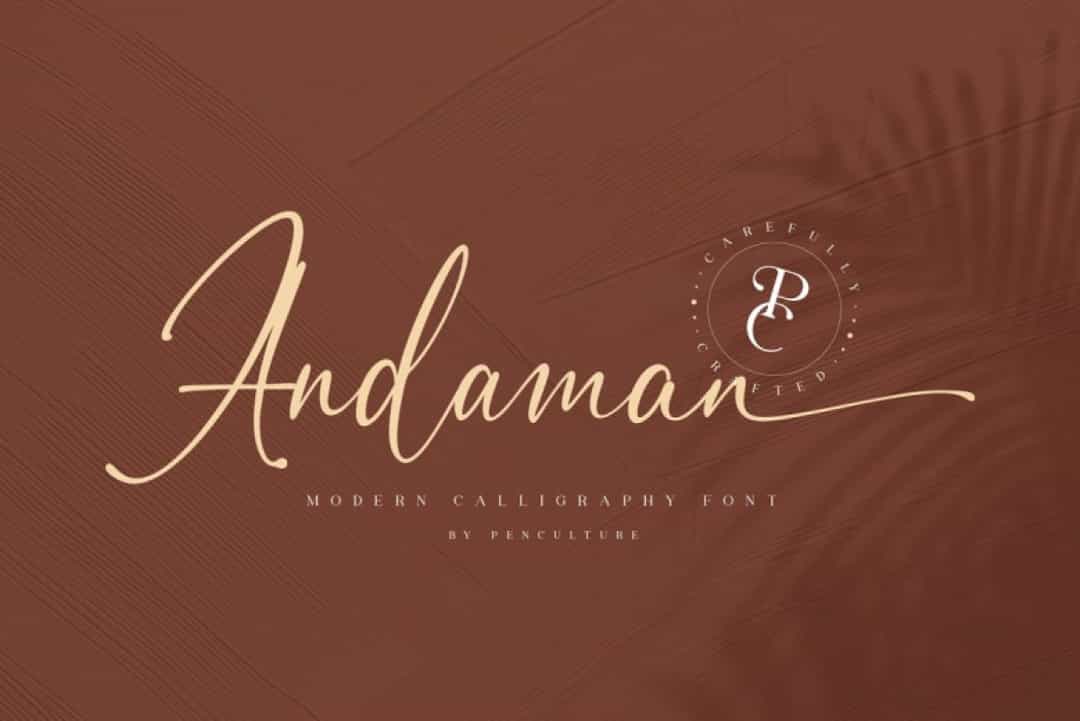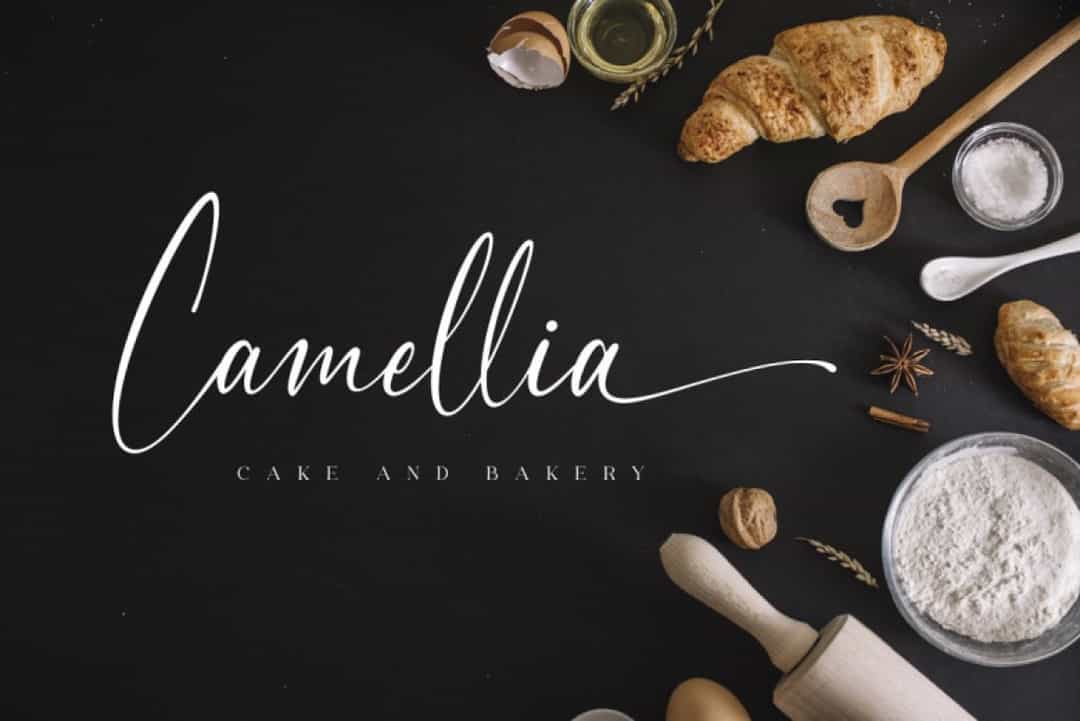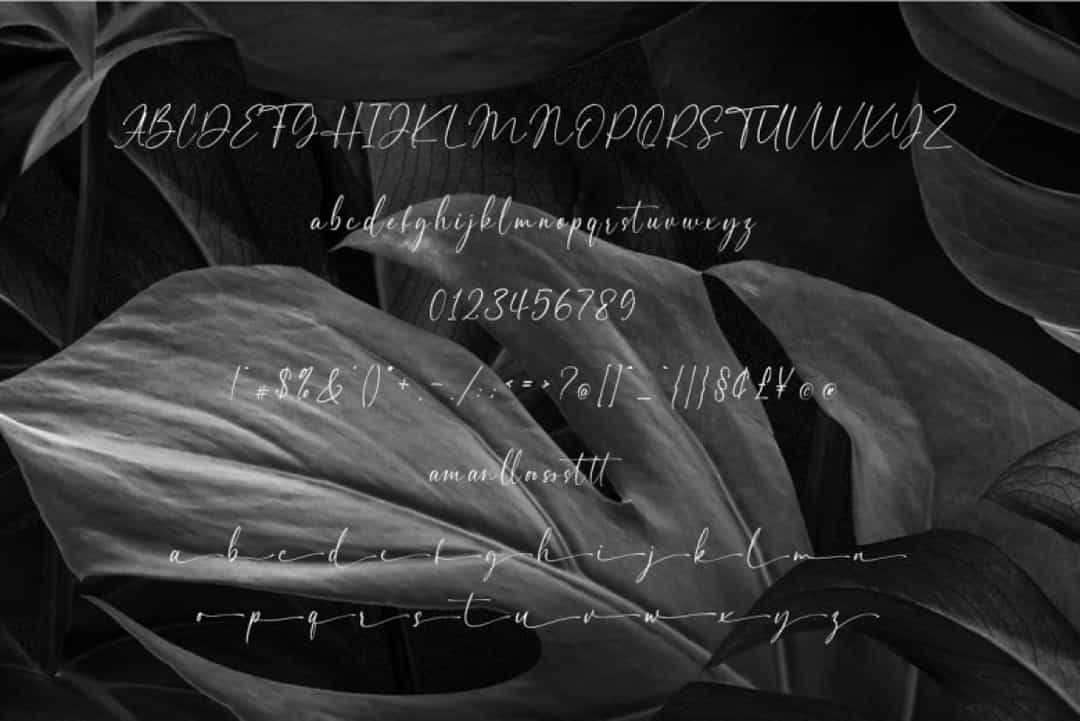
Andaman is a stylish contemporary script font designed for calligraphy that was meticulously hand-drawn with care. This font features both ligature and artificial swash, making it suitable for logos, branding fashion projects posters fashion projects magazines or any other applications that require contemporary calligraphic script.